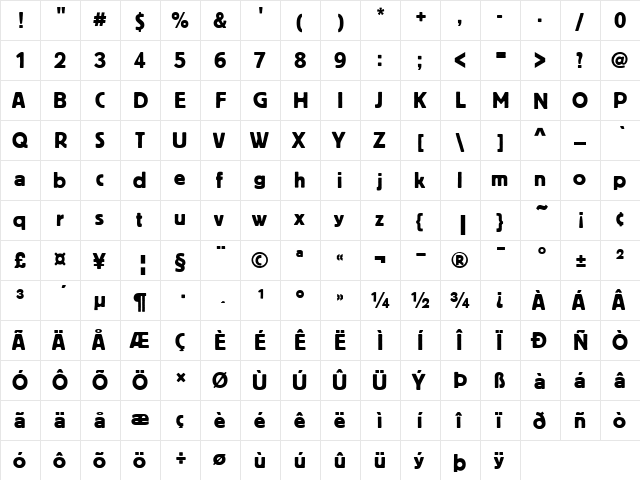
Block T Regular
| Foundry | by URW |
Block T offers clean, dependable letterforms without strong stylistic allegiance, making it a practical choice for designers who need flexibility.